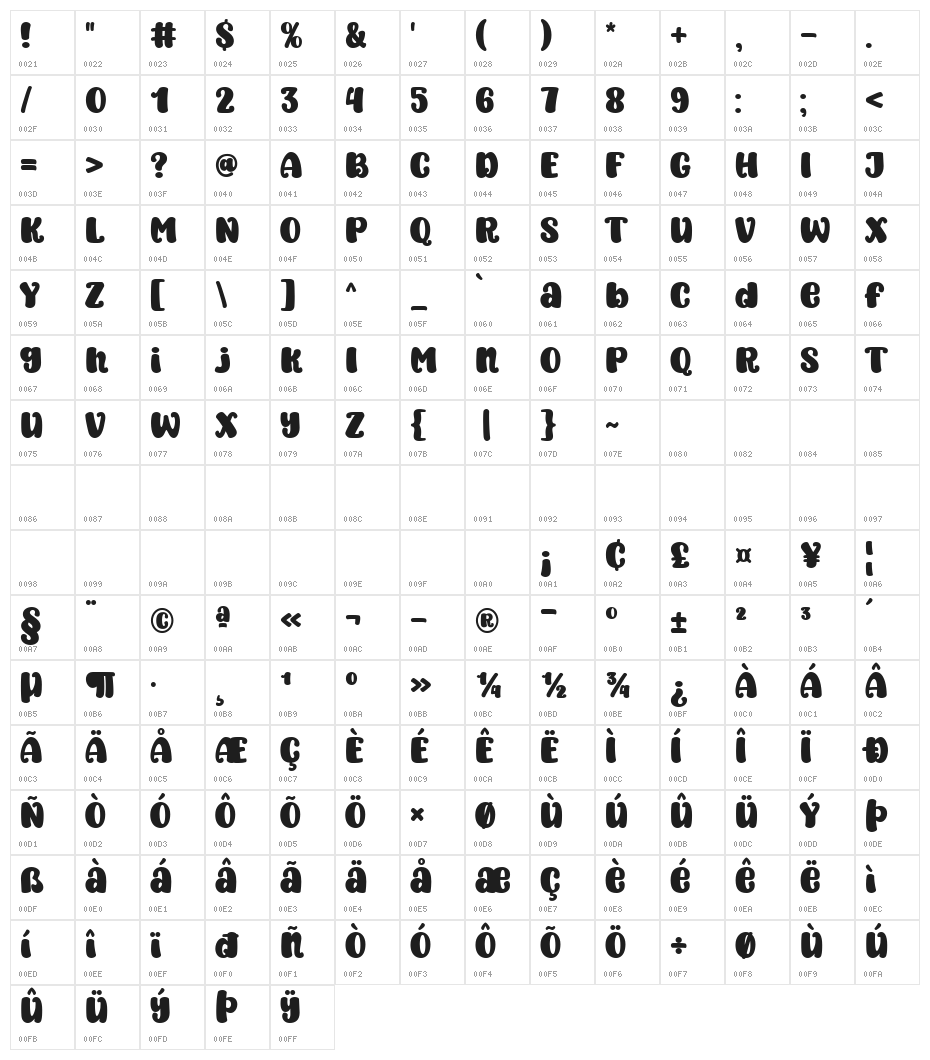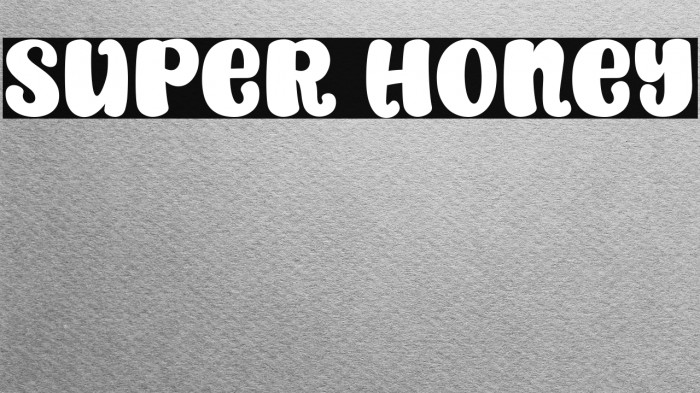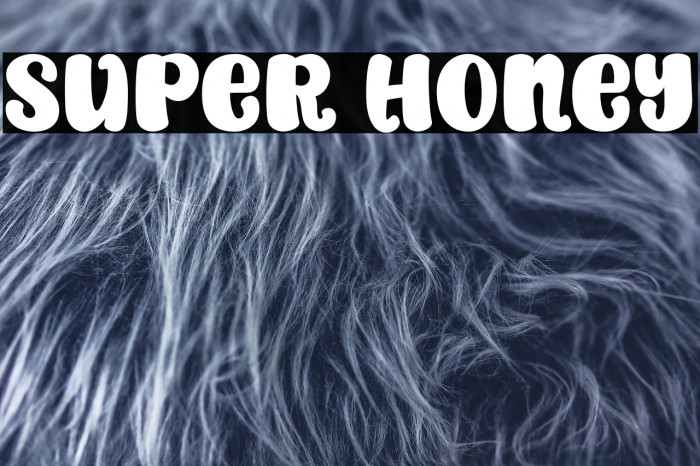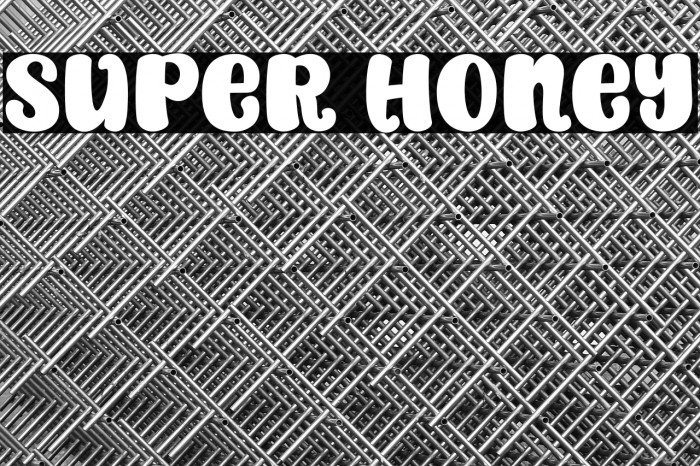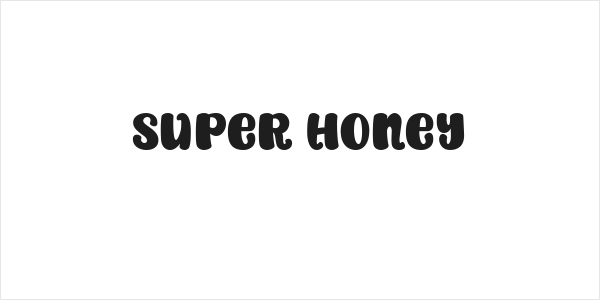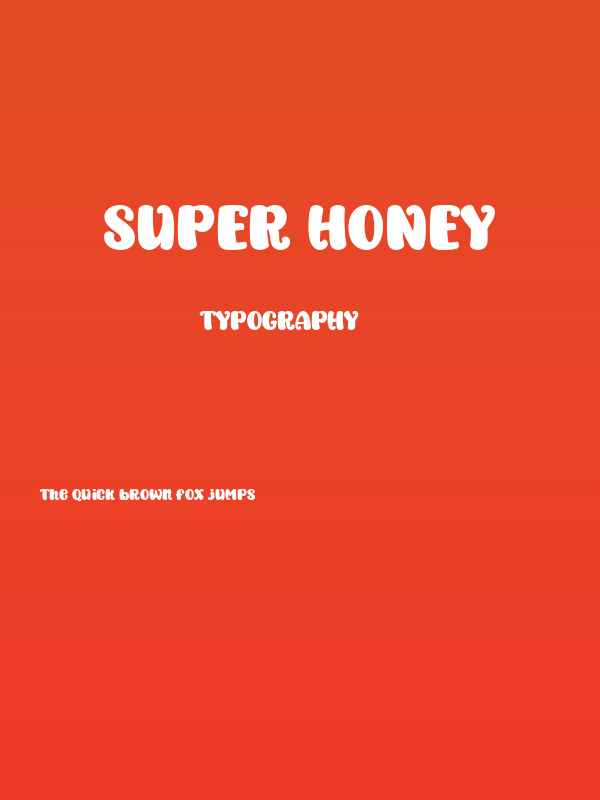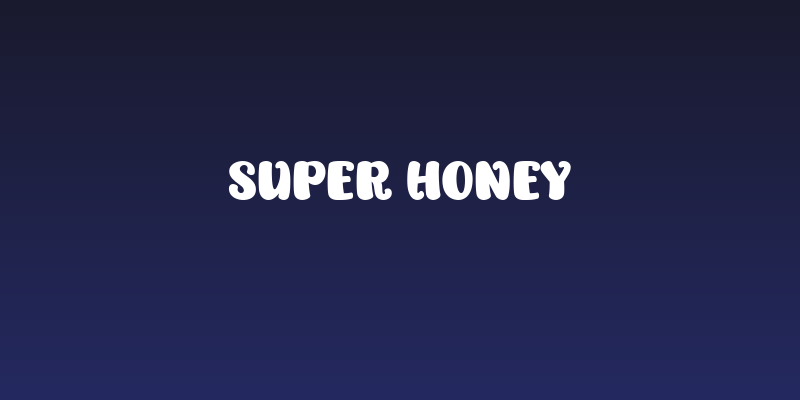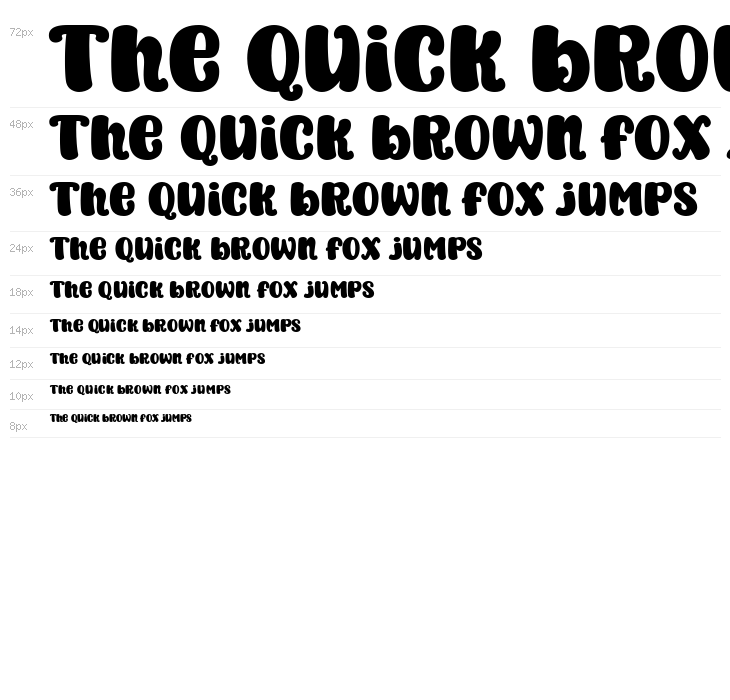
Super Honey Font
Super Honey Description
This playful and bold typeface features thick, rounded characters that exude a sense of fun and whimsy. The letters are generously spaced, allowing each character to stand out distinctly. The font's curves are smooth and consistent, creating a harmonious flow across the text. Its bold weight and rounded edges make it highly legible, even at smaller sizes. The style is reminiscent of retro and vintage designs, yet it maintains a modern appeal that can be adapted to various creative projects. The numbers and special characters are equally bold and rounded, ensuring a cohesive look throughout any text. This font is perfect for capturing attention and conveying a lively, energetic vibe.
| Overall Style | Playful, Retro, Modern |
| Proposed Projects | Ideal for children's books, playful branding, posters, and social media graphics. |